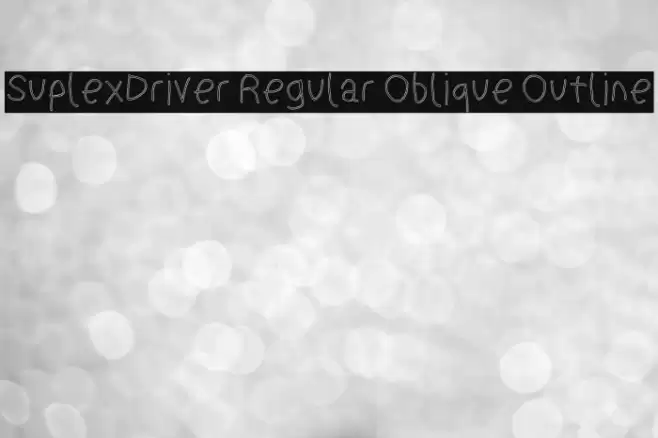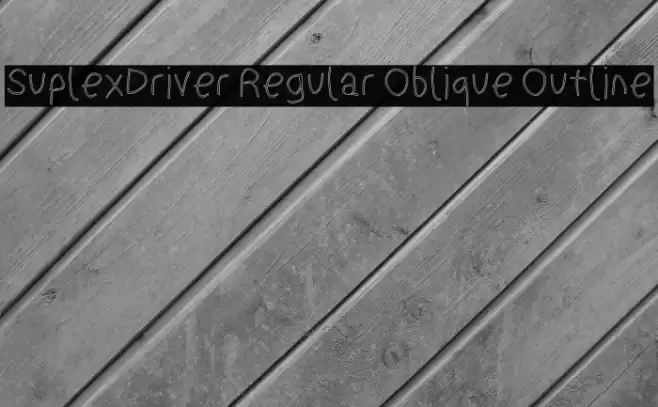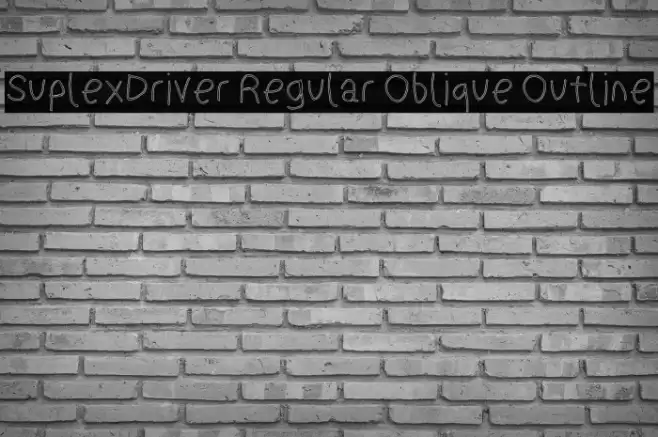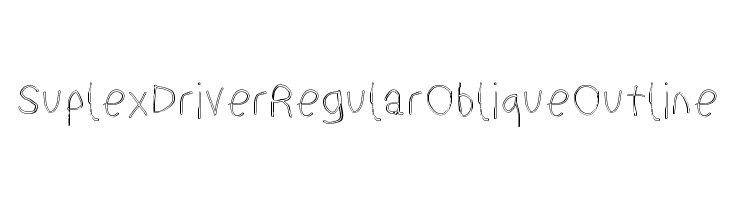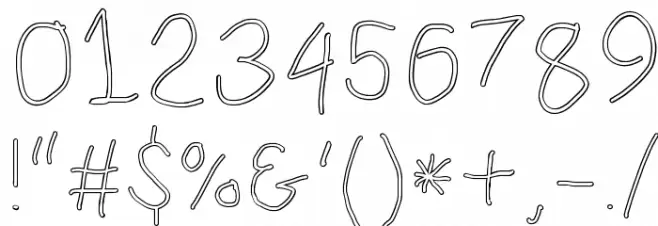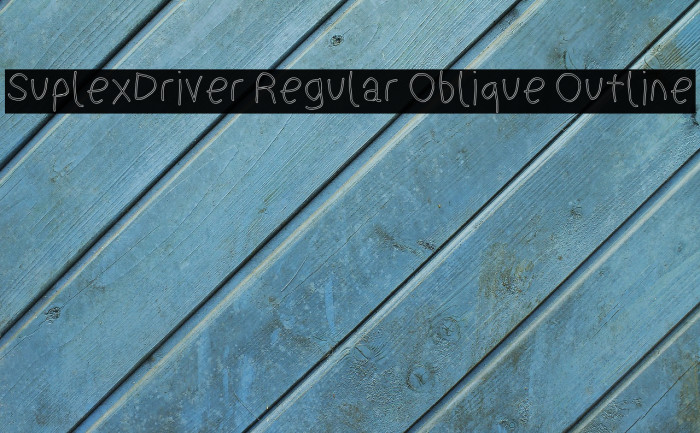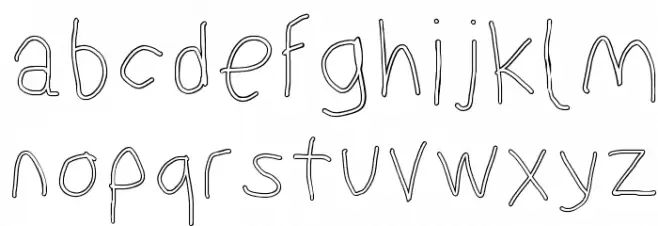
SuplexDriver Regular Oblique Outline Font
SuplexDriver Regular Oblique Outline Description
This font features a playful and casual style with an outline effect that gives it a unique, hand-drawn appearance. The letters are slightly oblique, adding a dynamic and informal touch. Each character is crafted with a consistent stroke width, maintaining a uniform look throughout. The uppercase and lowercase letters are well-balanced, and the numerals are clear and easy to read. Special characters are included, enhancing its versatility. The overall design is approachable and friendly, making it suitable for projects that require a personal and creative feel.
A playful, outlined font with a hand-drawn, oblique style from Handwritten fonts.
- Proposed Projects: Ideal for children's books, casual invitations, playful branding, and creative posters.
- Overall Style: Casual, Playful